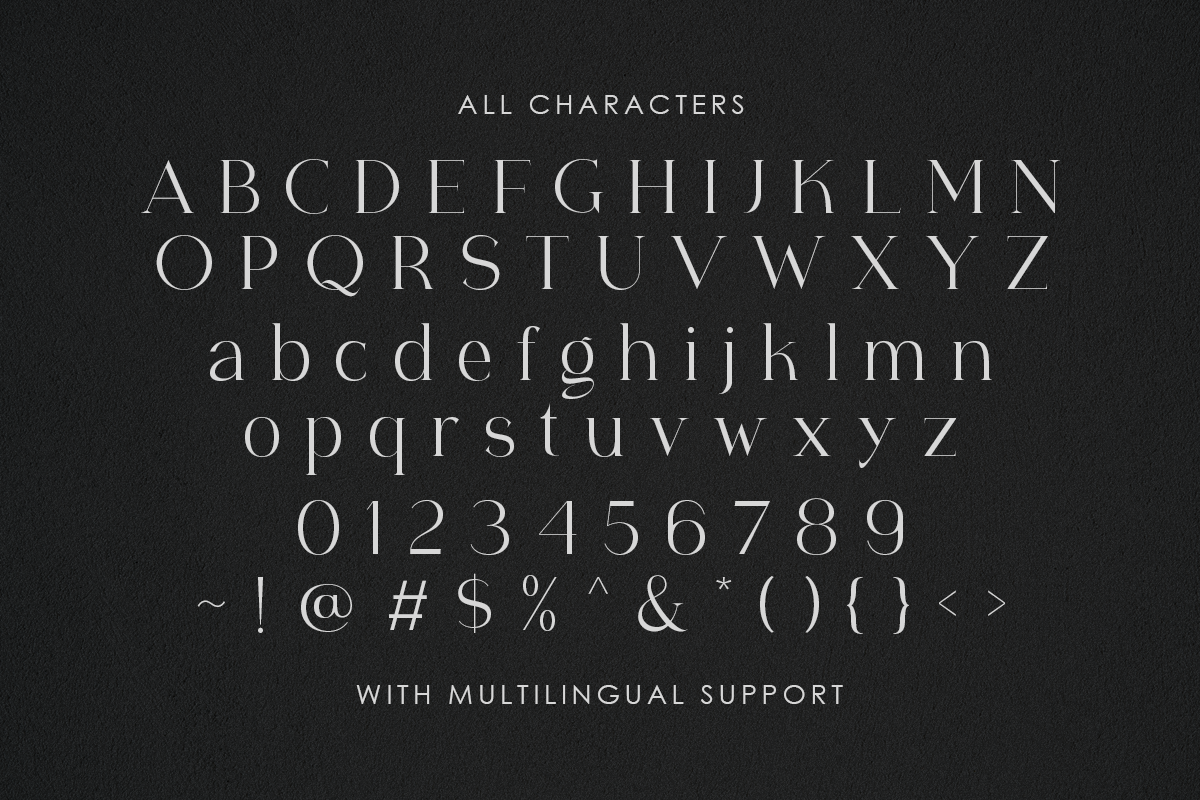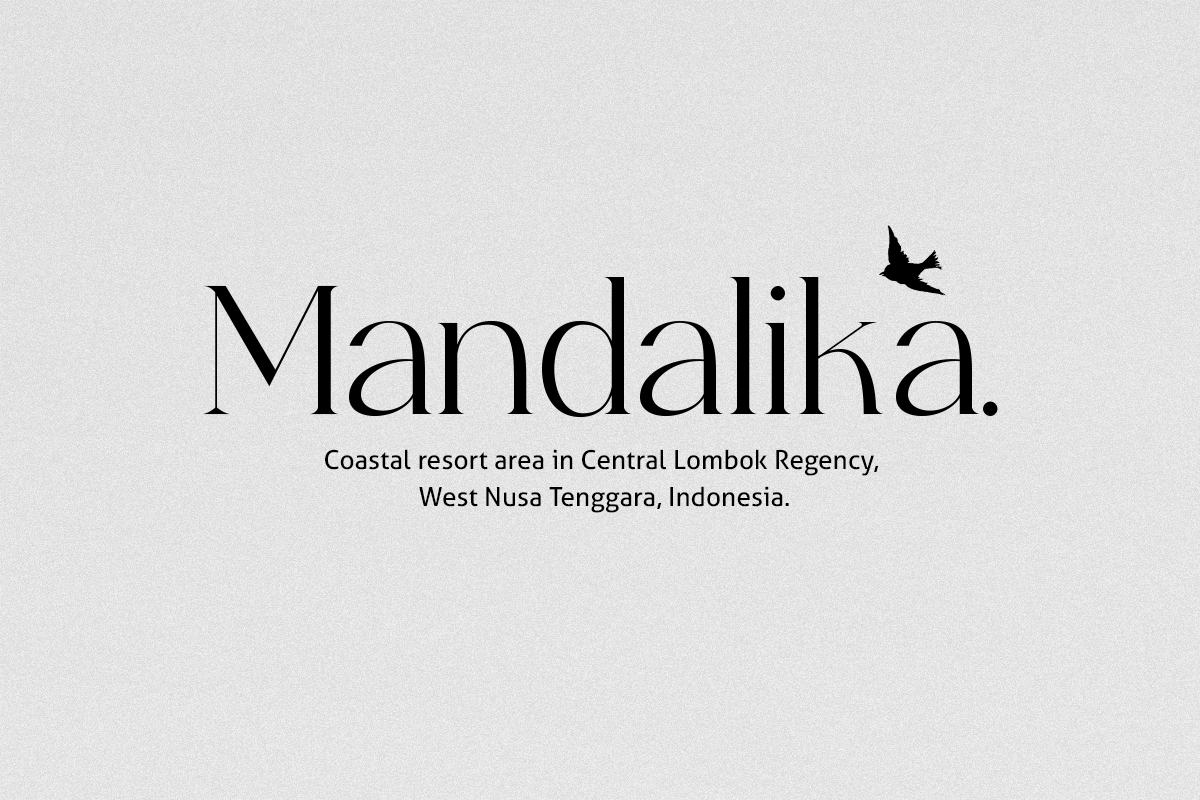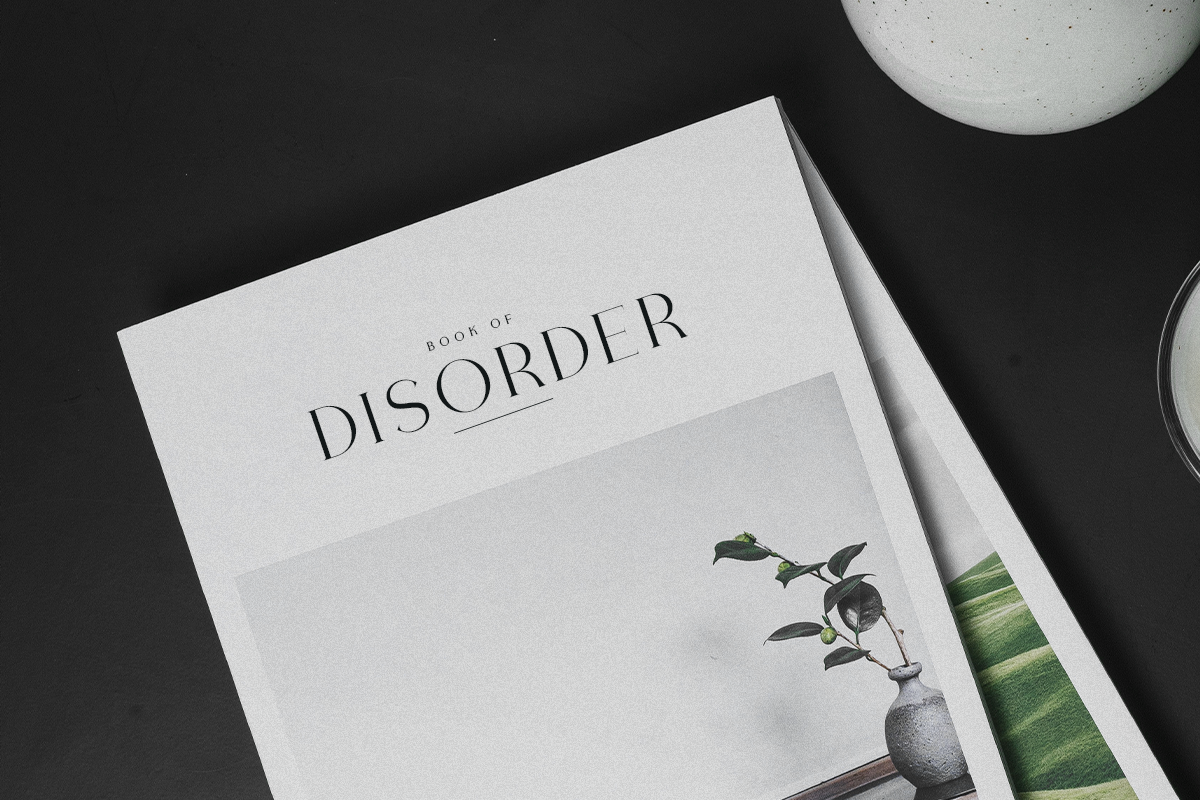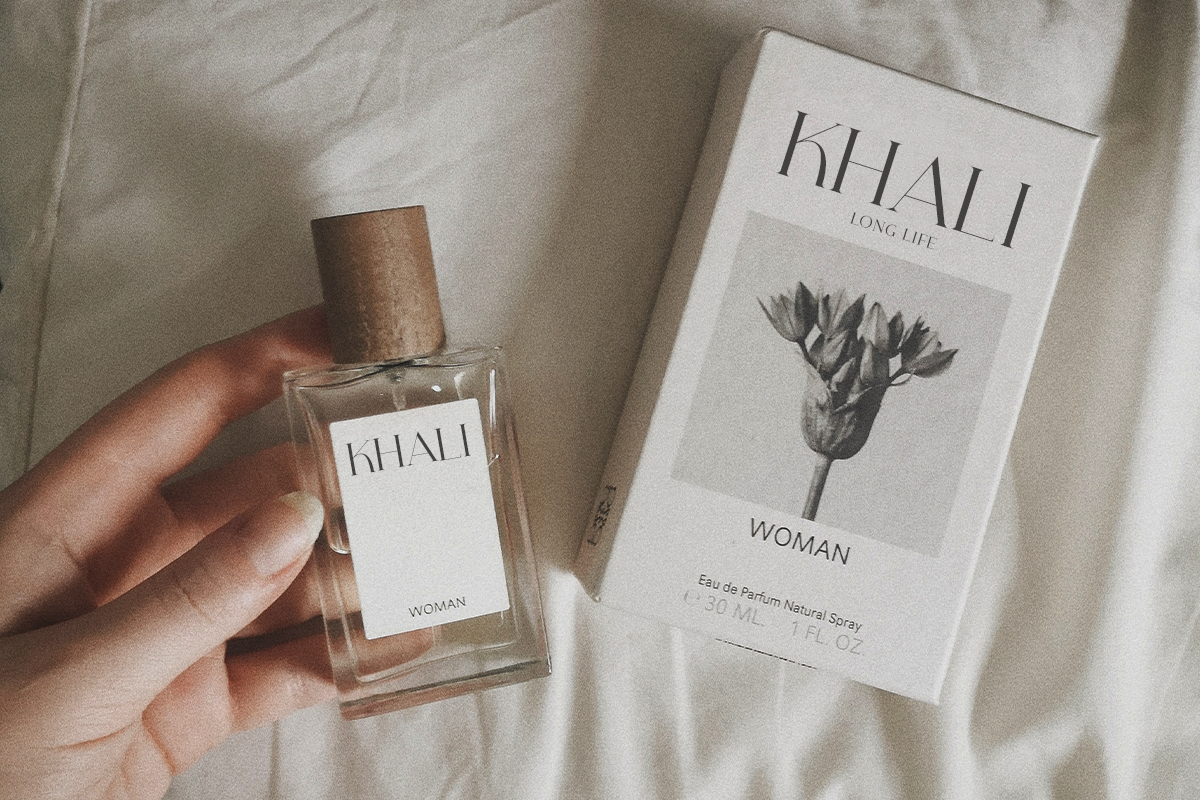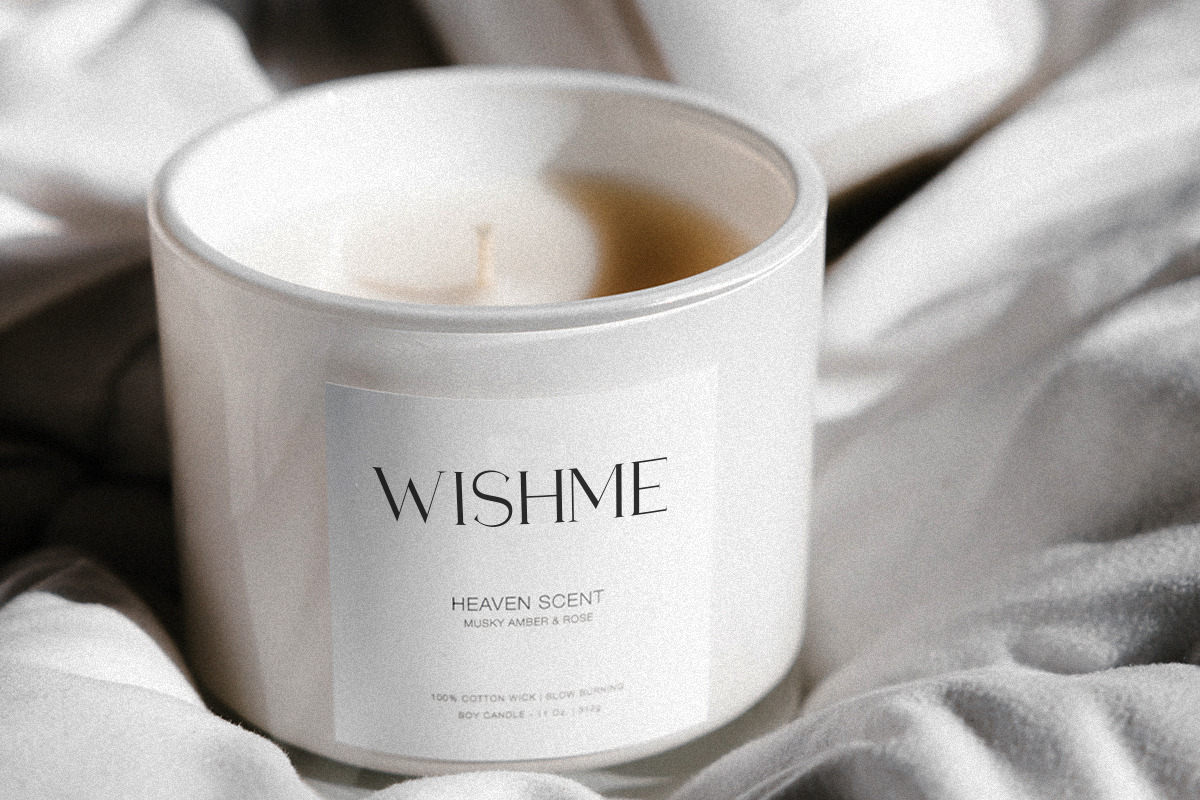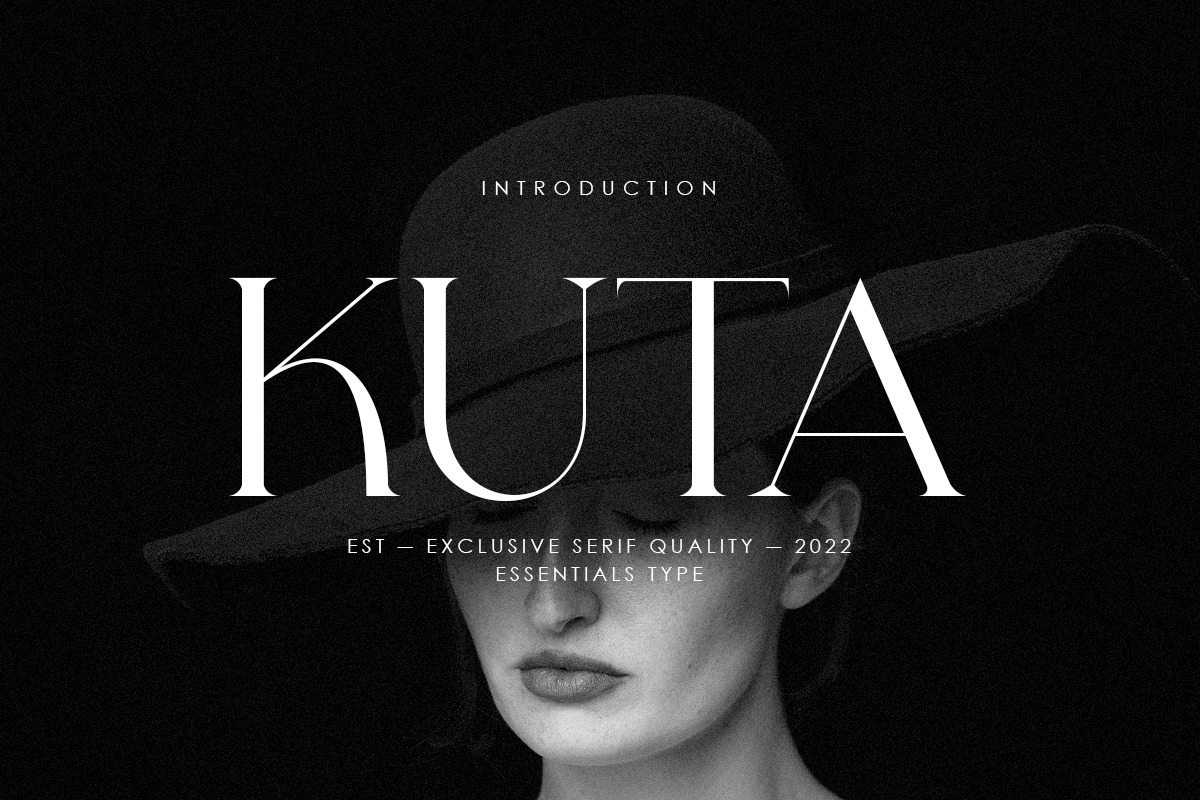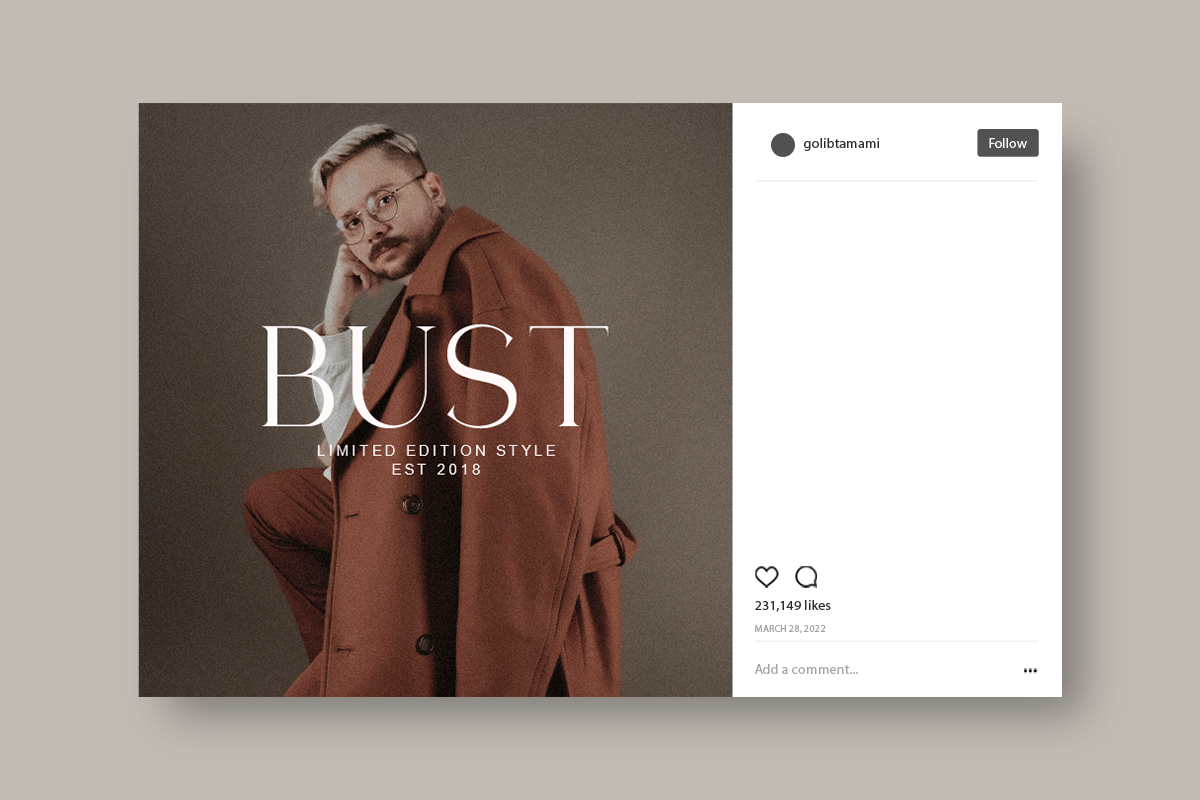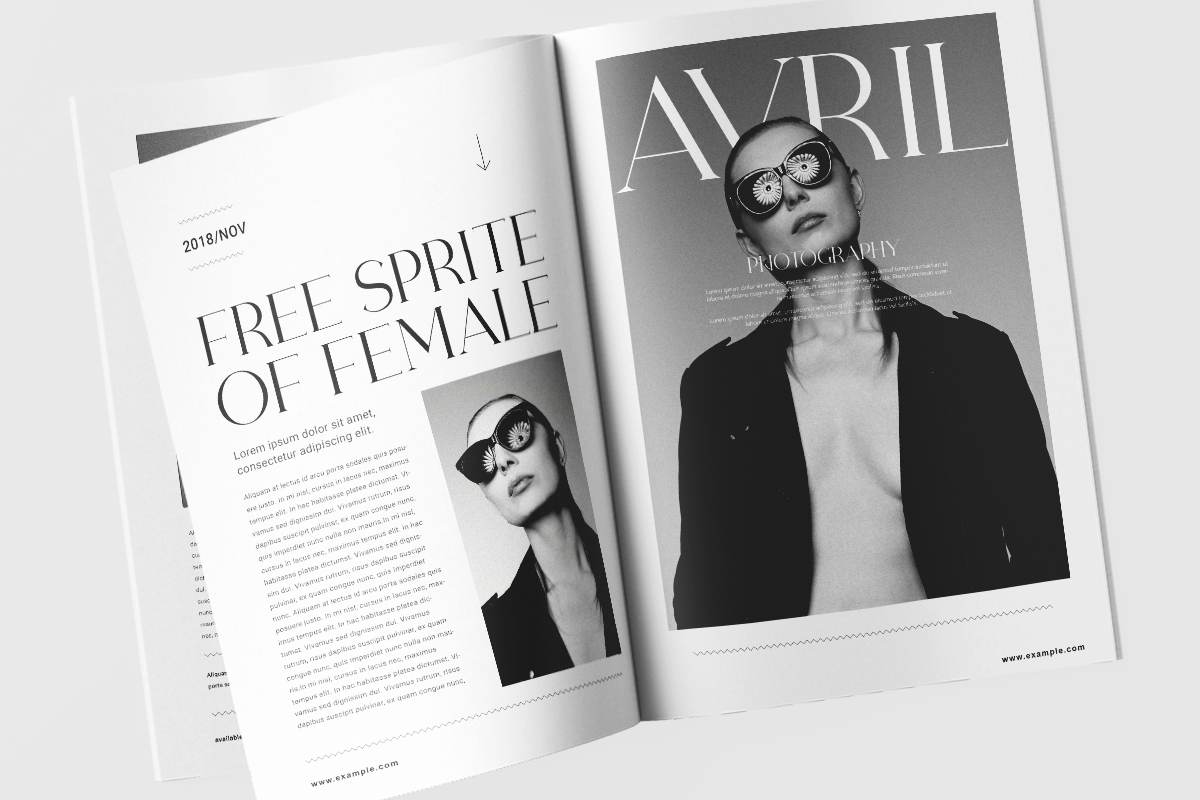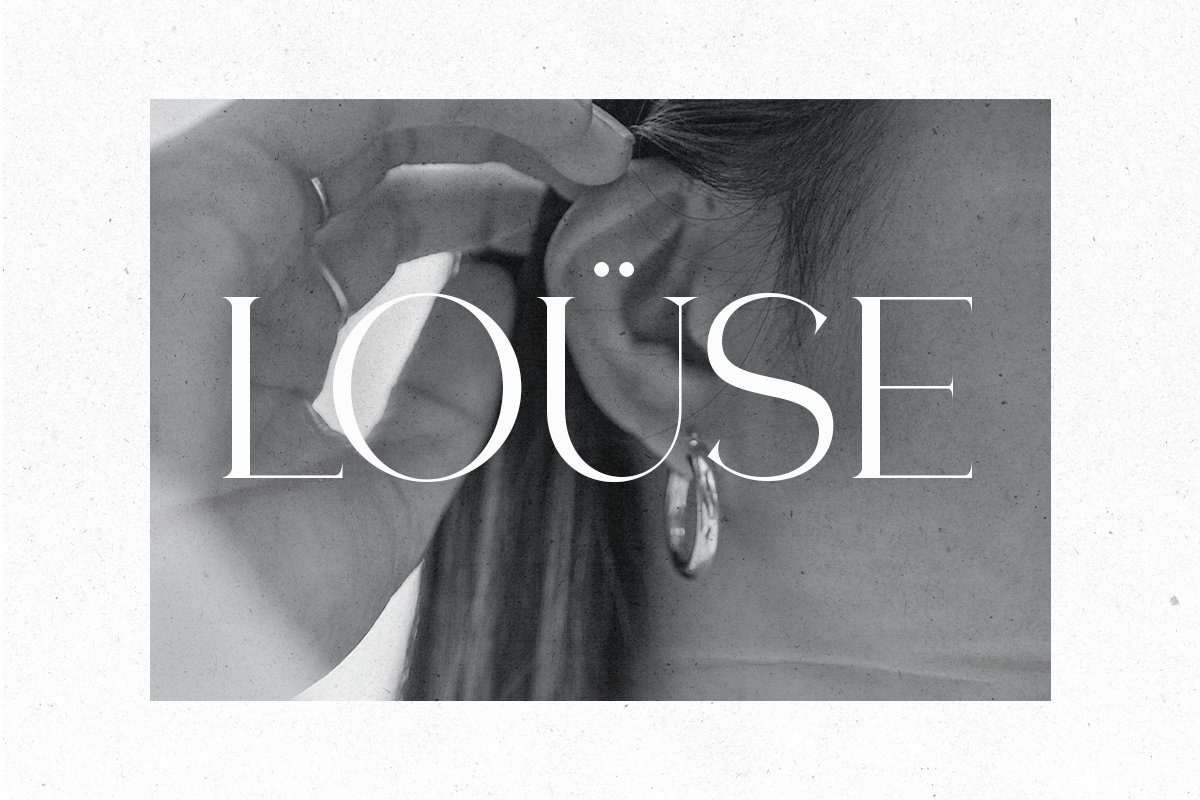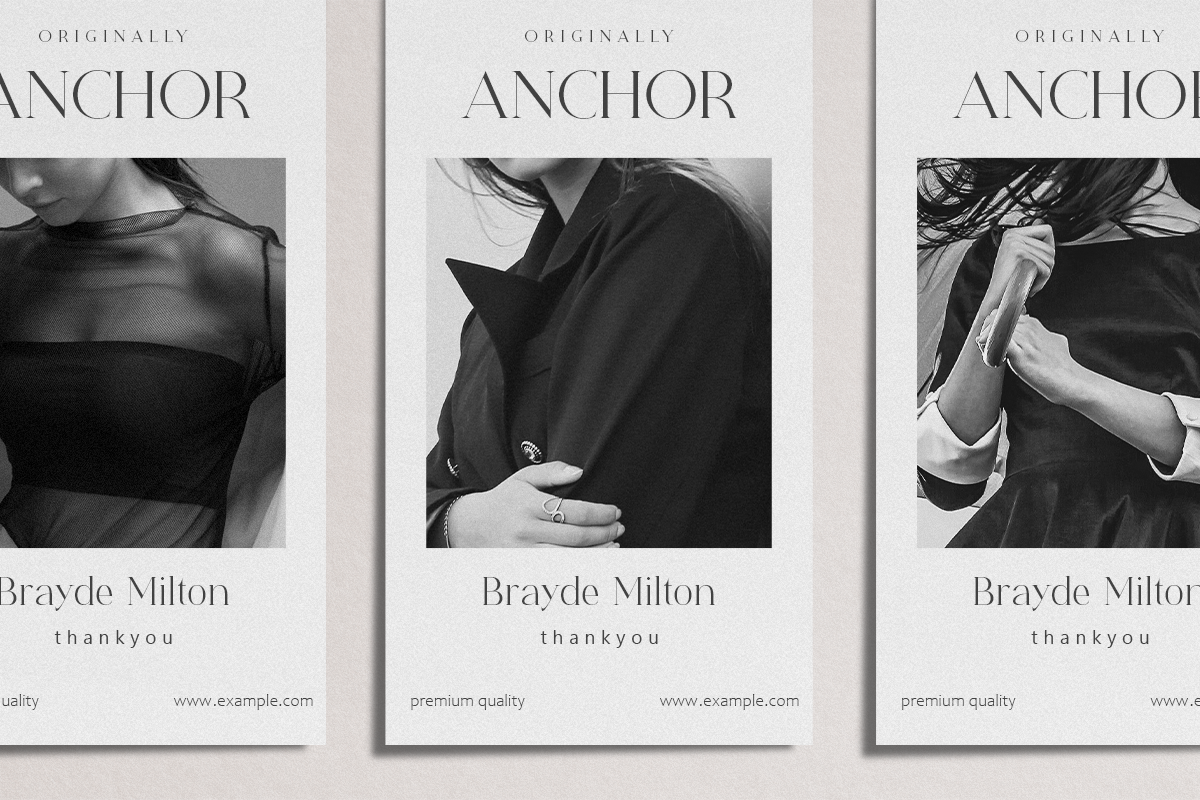
KUTA - Exclusive Serif Font
Kuta is exclusive modern typeface with minimal style. This font is perfect for magazine covers, clothing brands, aesthetic furniture, Fashion, and much more. It pairs beautifully with a minimal sans serif or light script font.